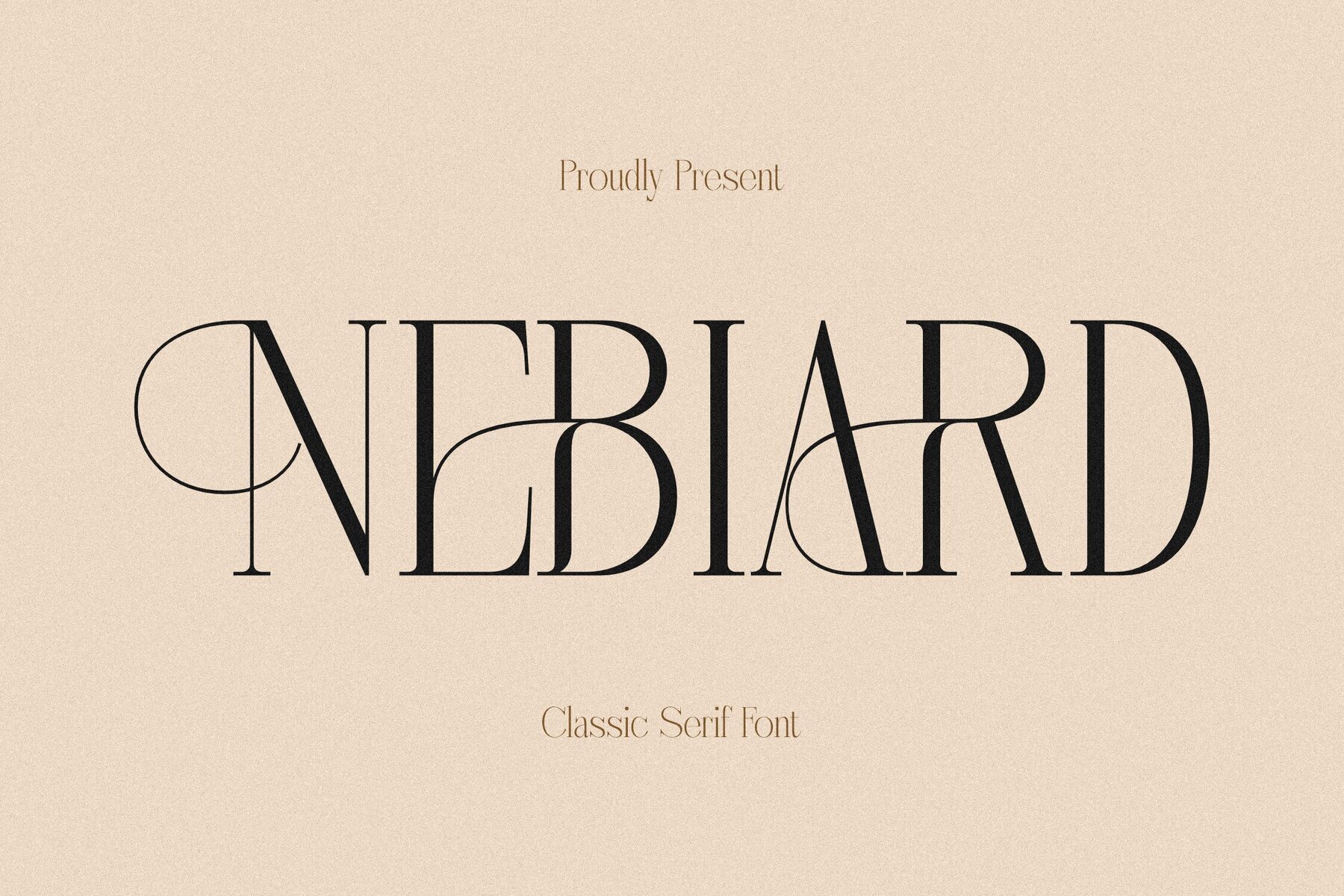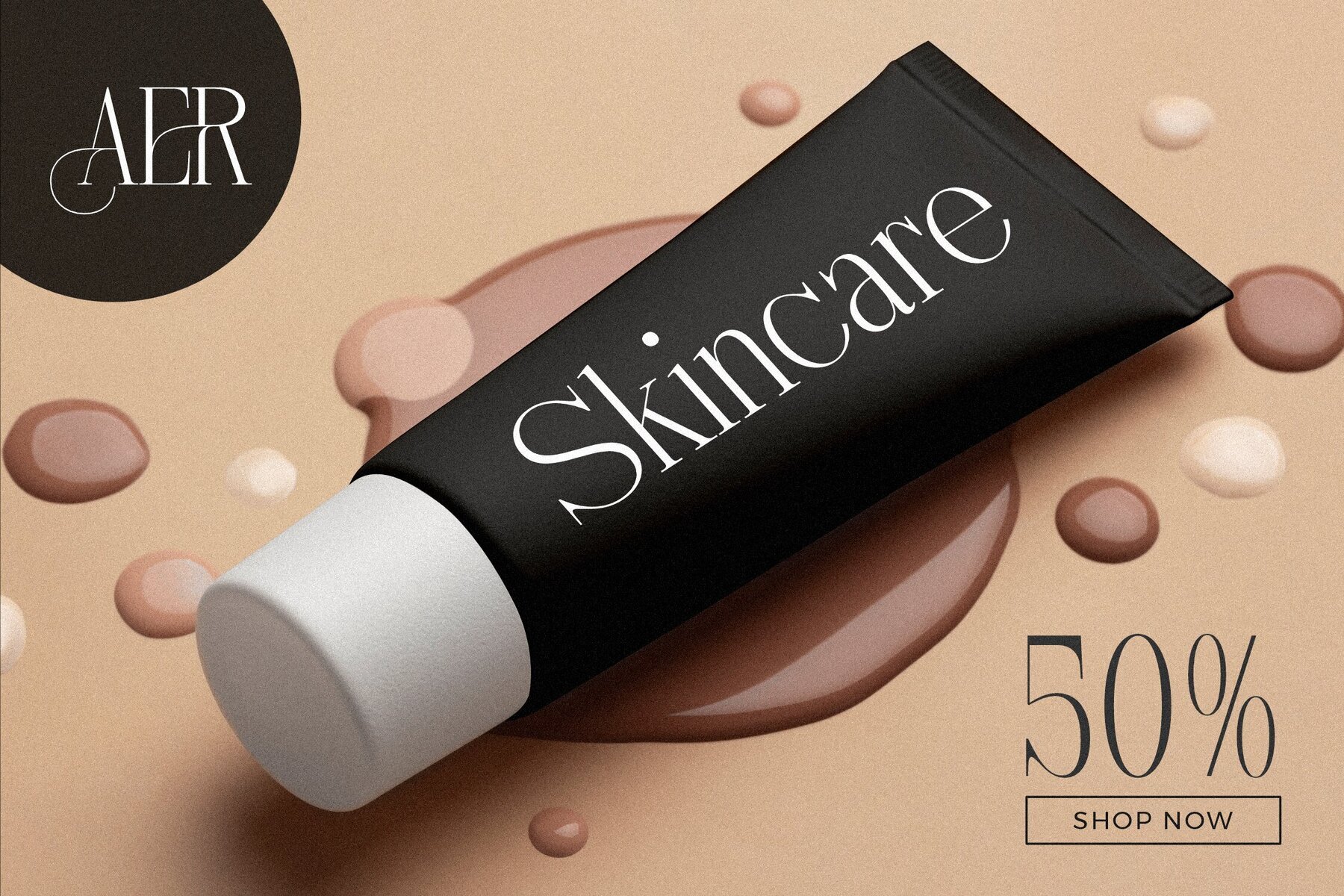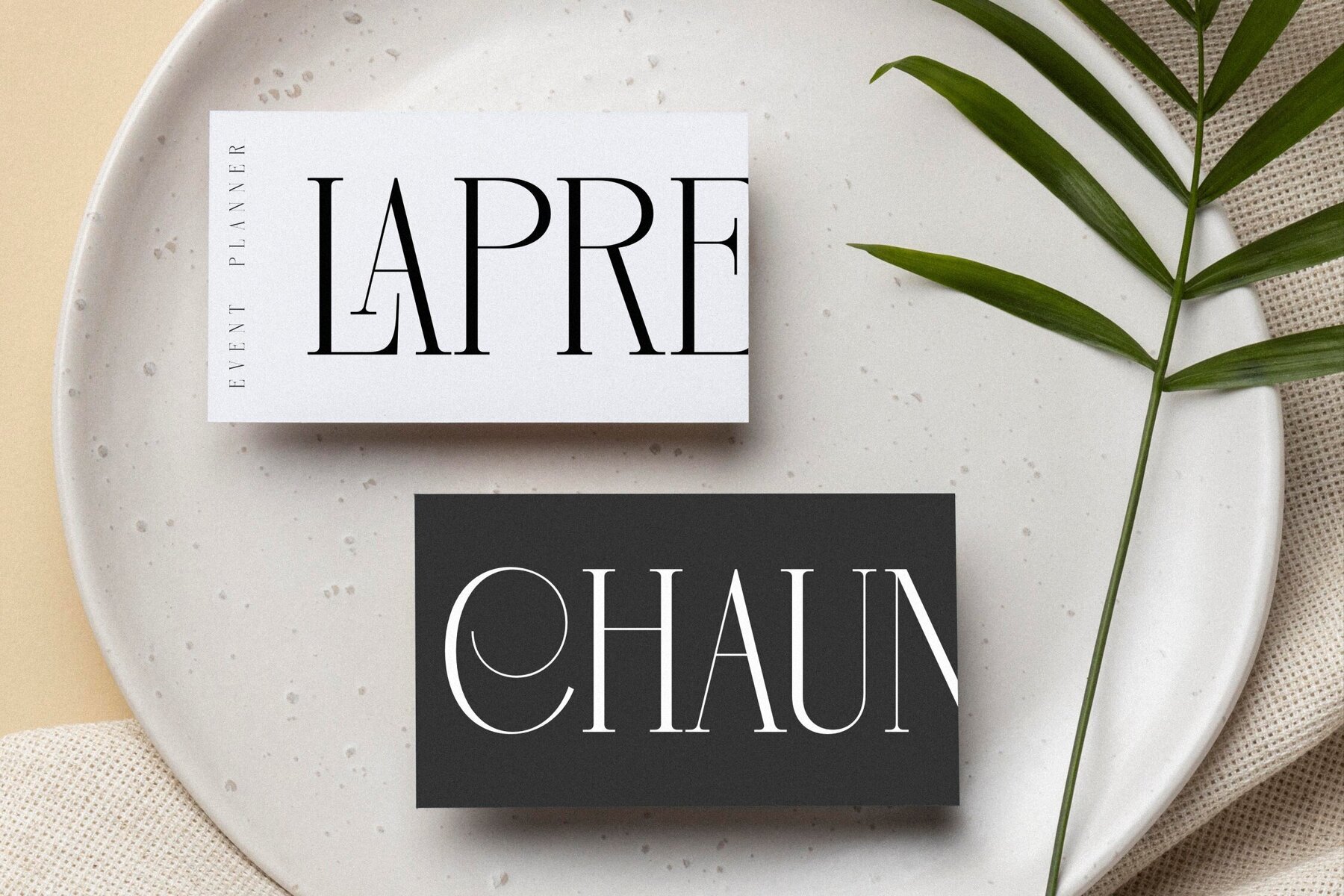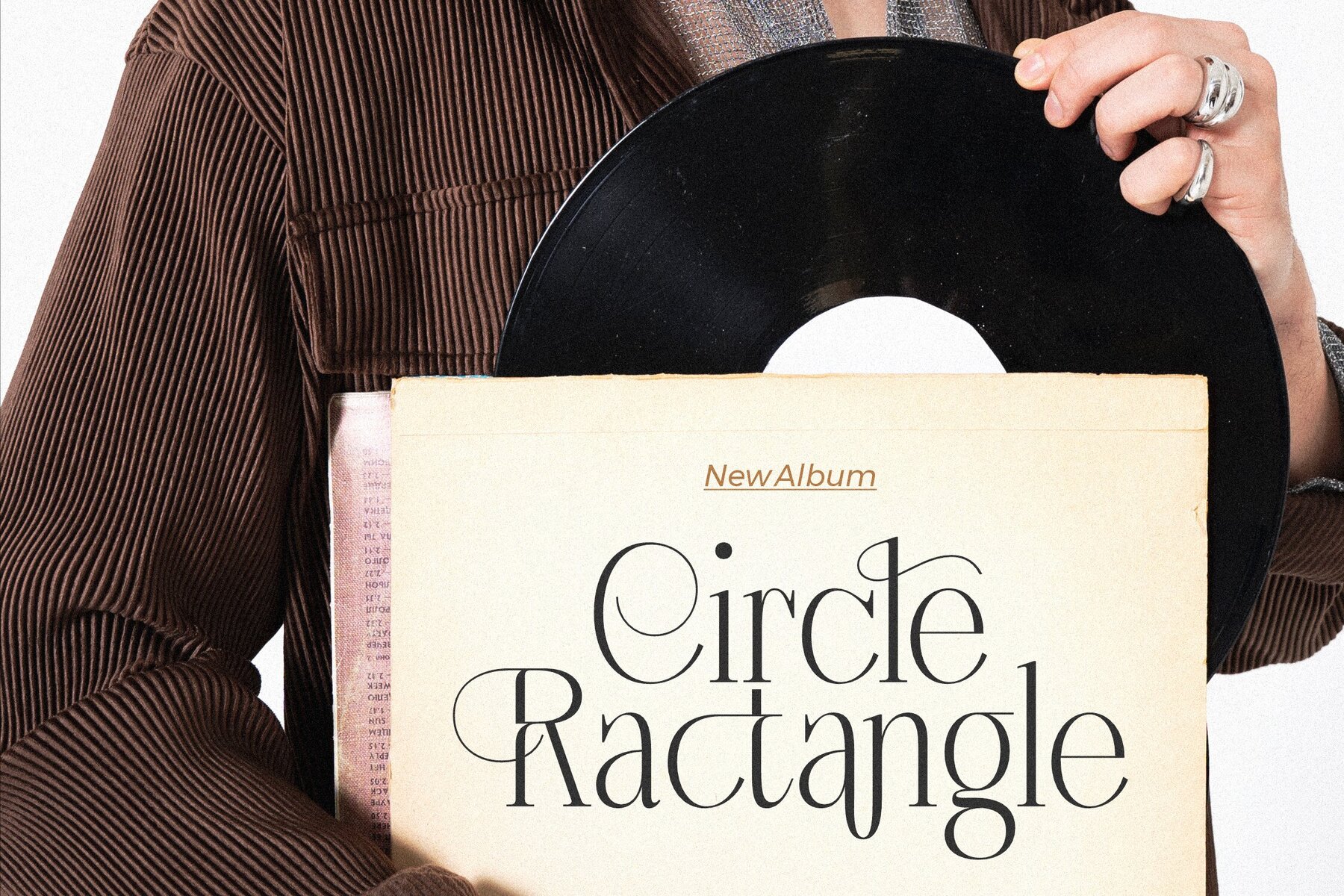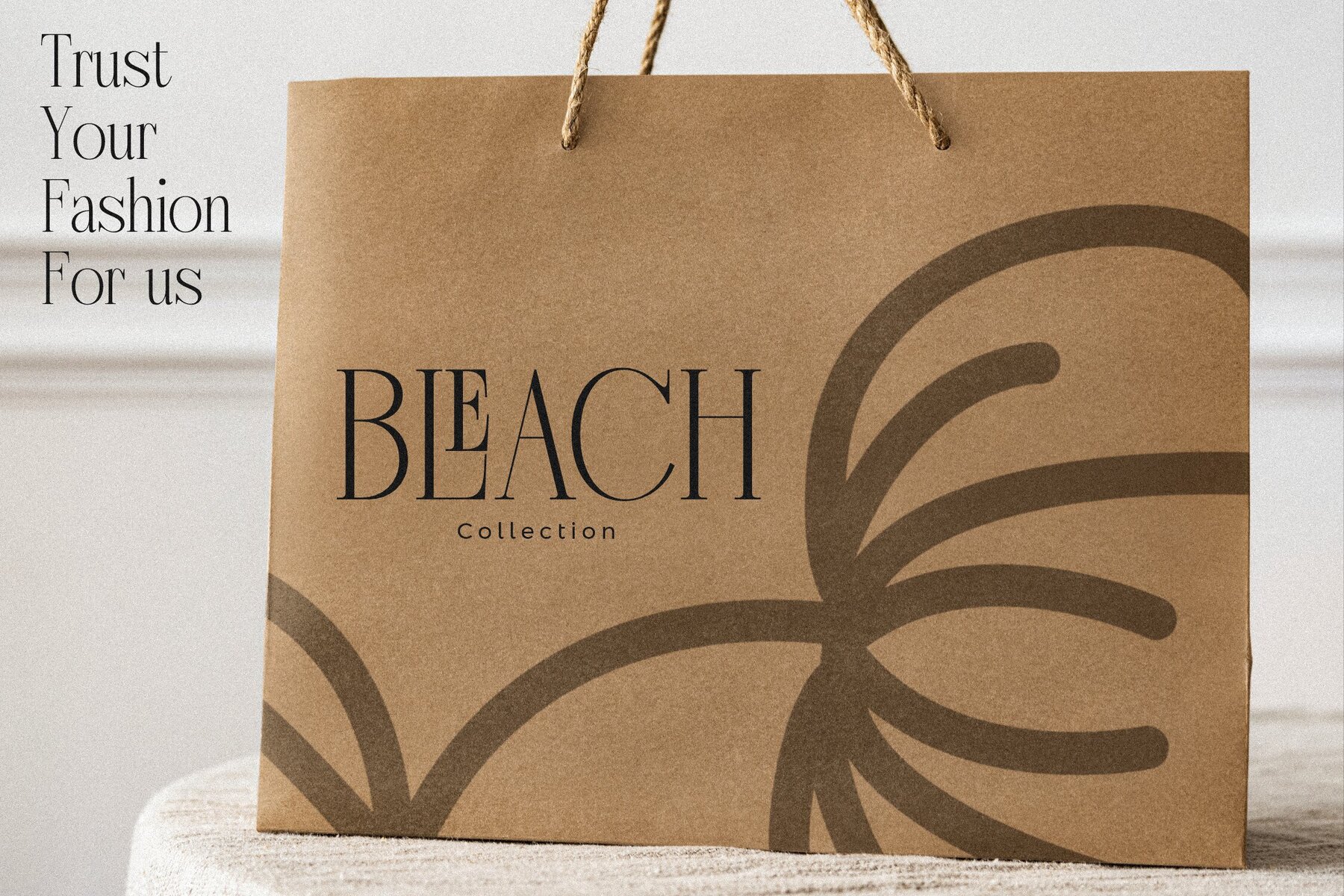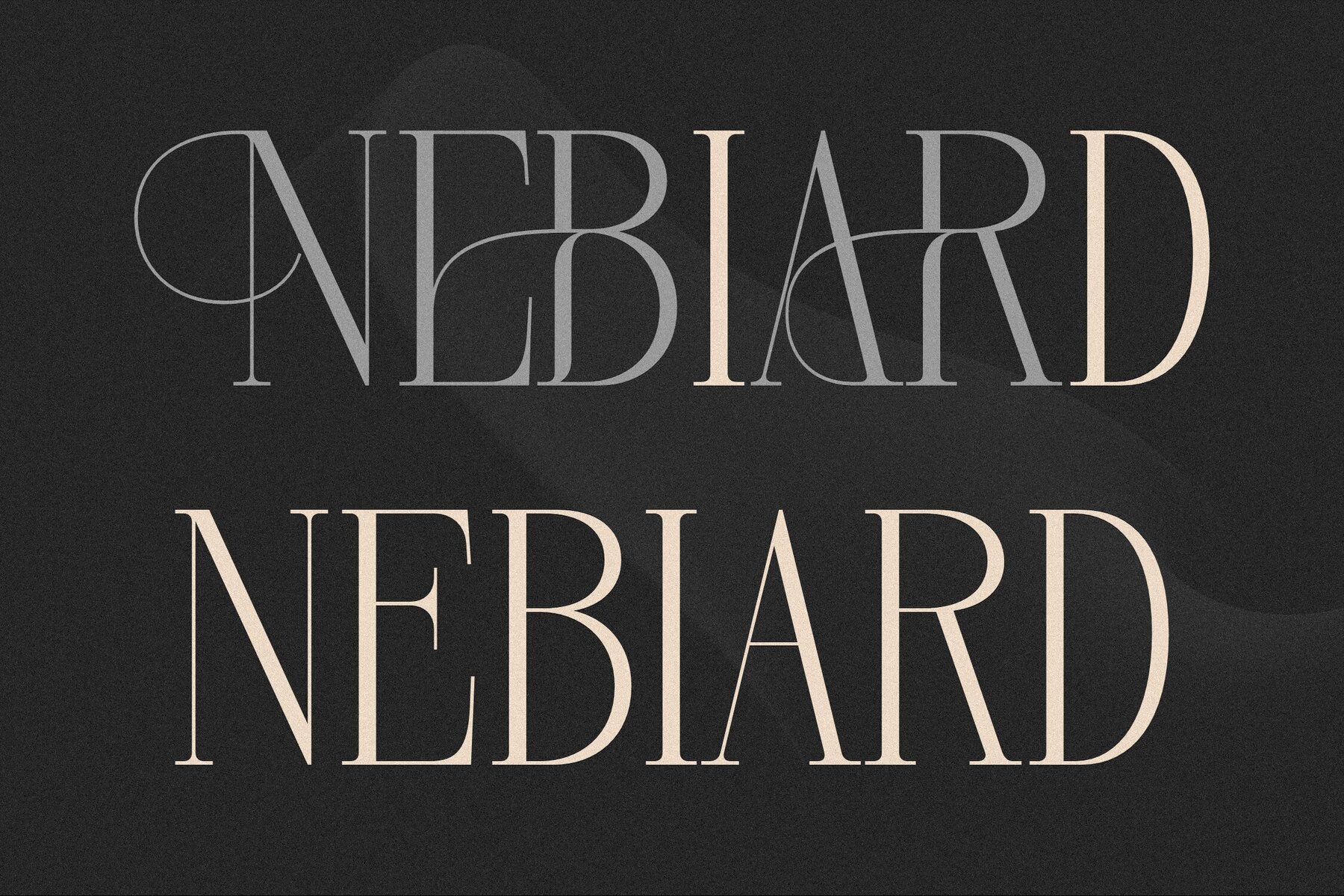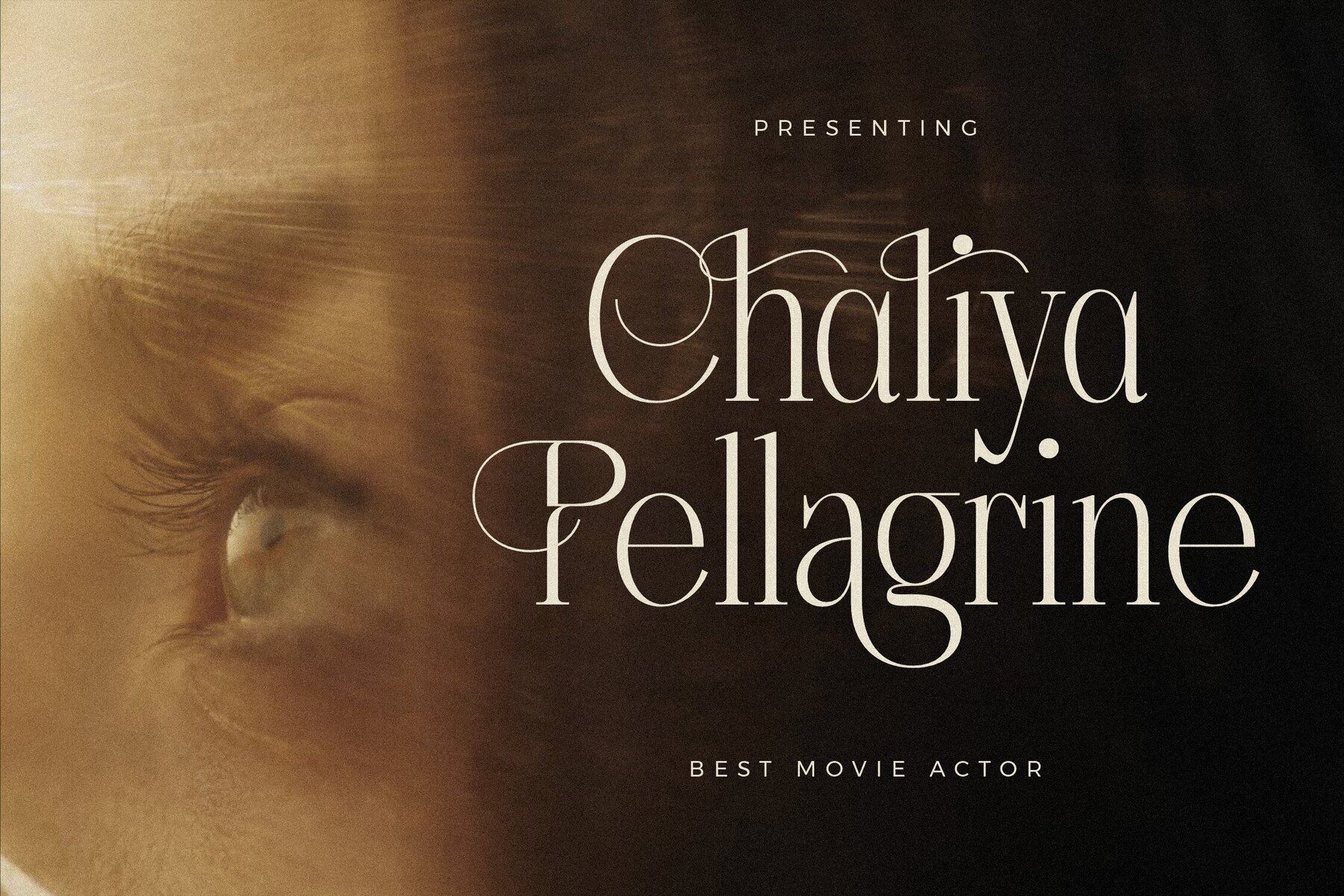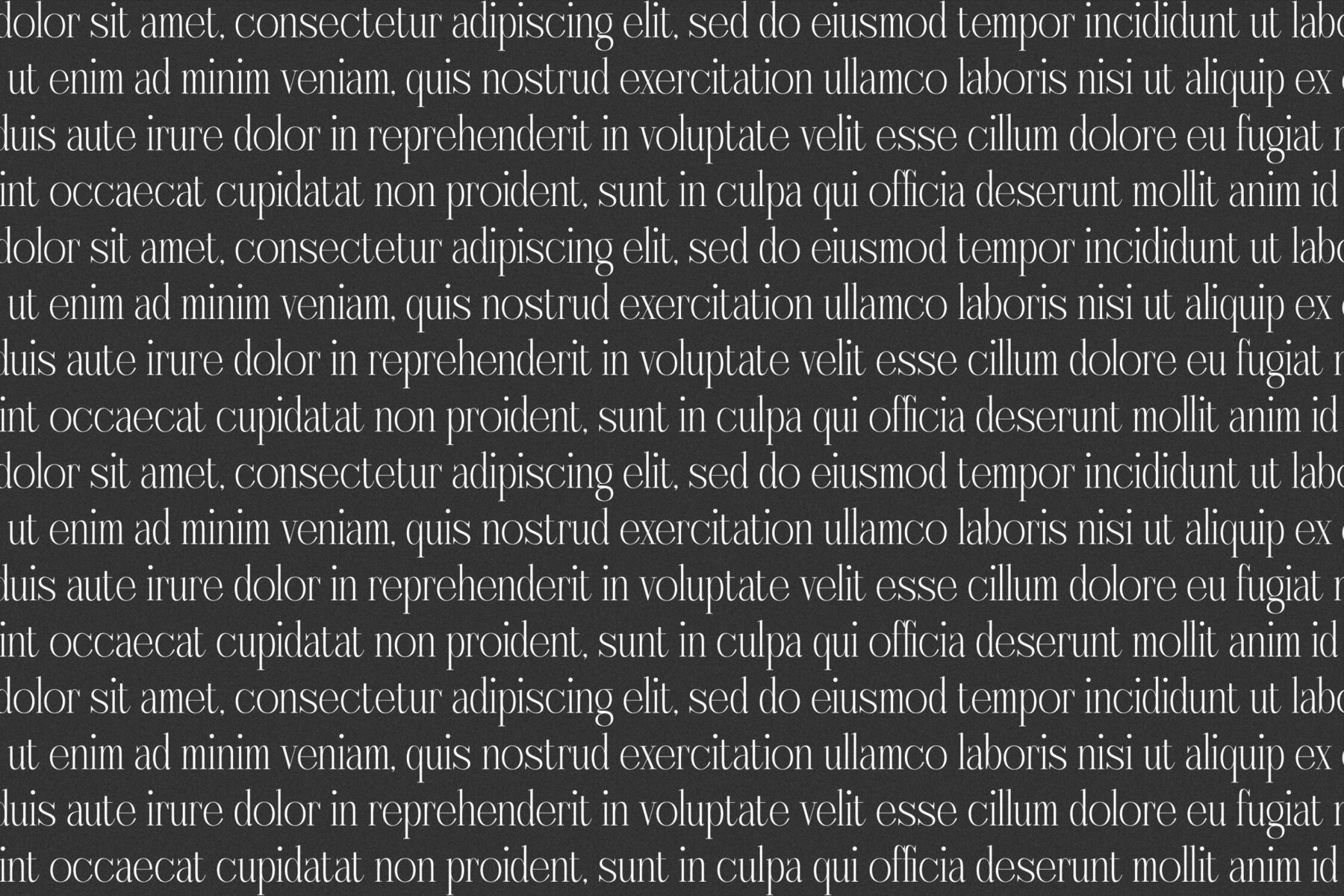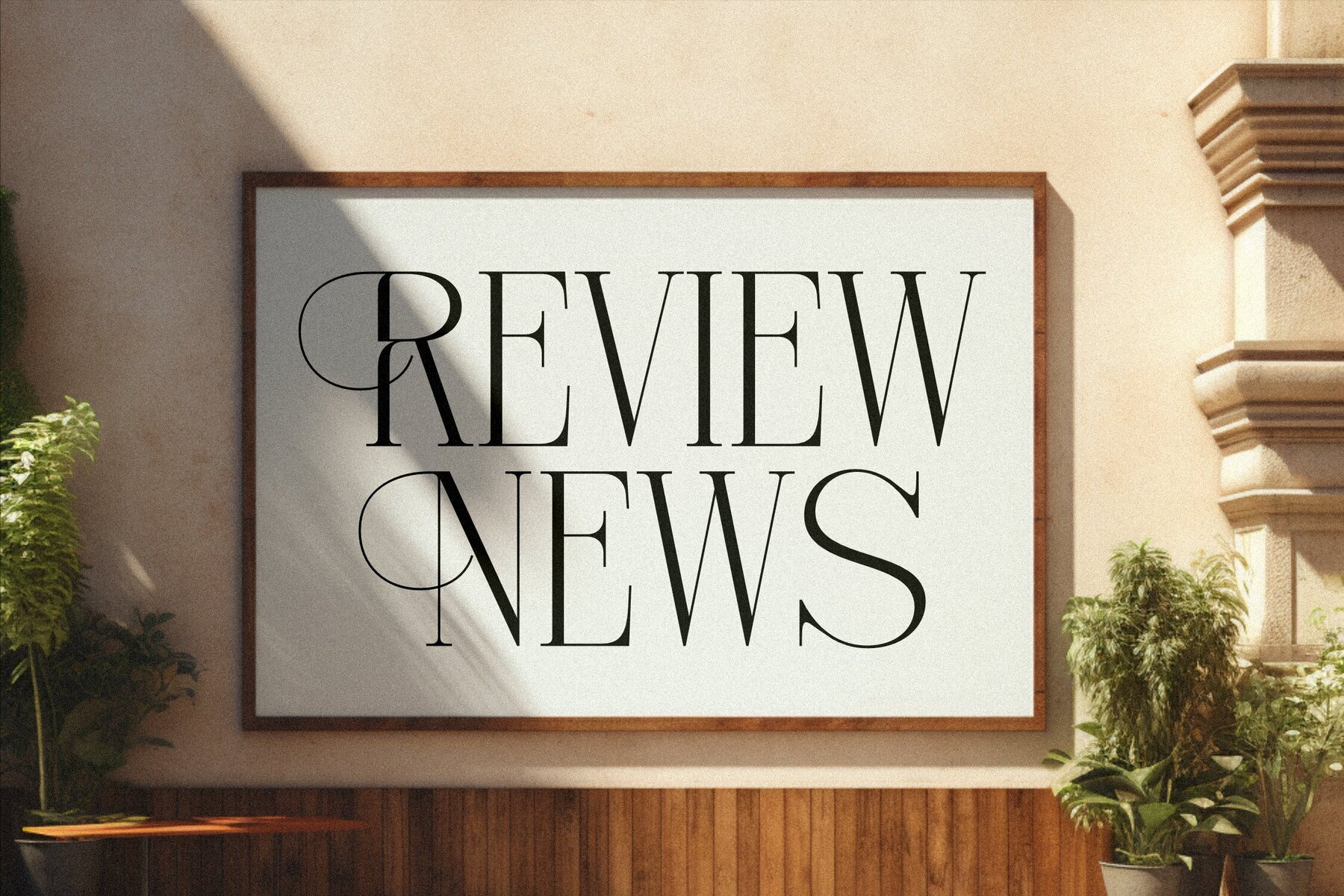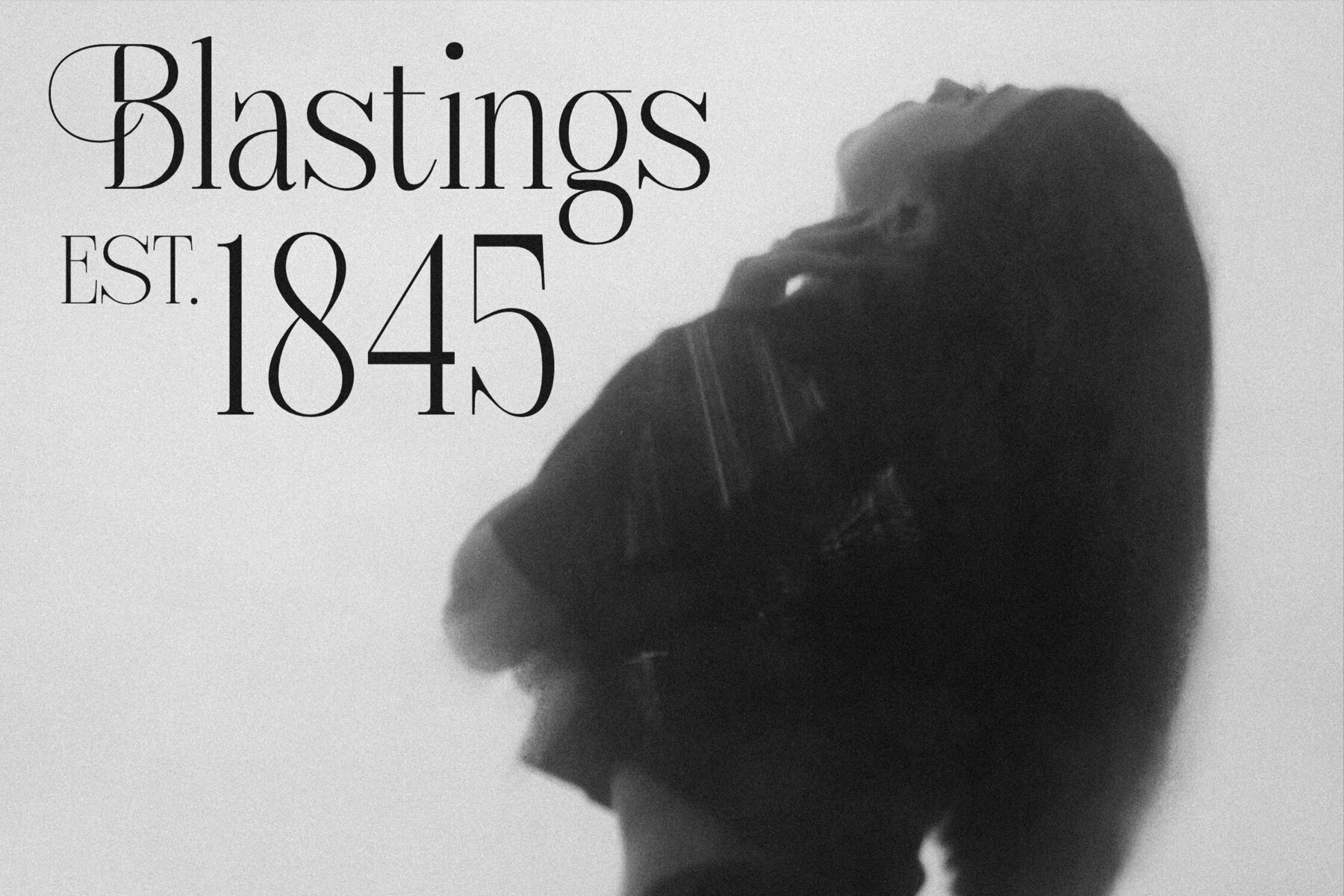
Nebiard Font
Discover the timeless elegance of the Nebiard Typeface, an exquisite serif font crafted by Storytype Studio. Boasting a modern yet classic design, this typeface offers a distinct style that enhances the sophistication of your projects. Whether crafting a luxe logo, designing an eye-catching book or movie title, or creating fashion-forward branding, Nebiard delivers unparalleled appeal.Nebiard Typeface